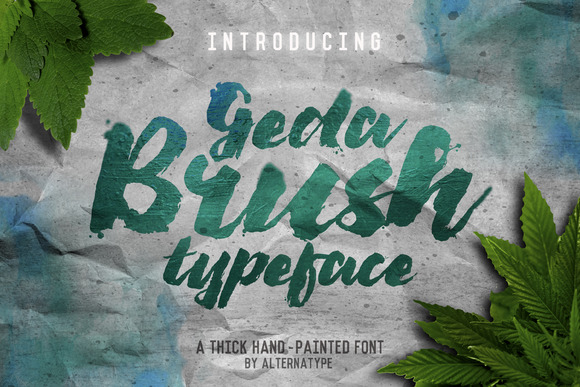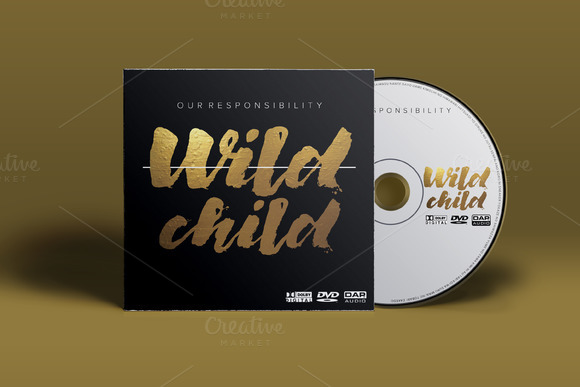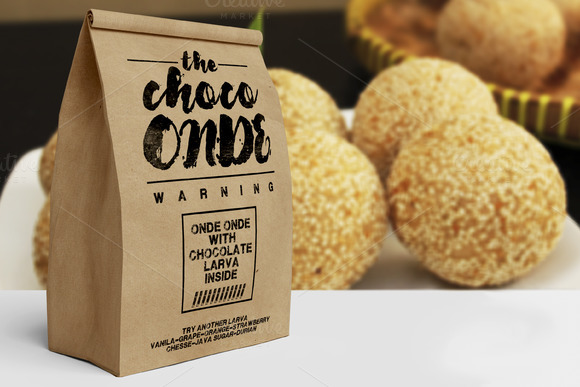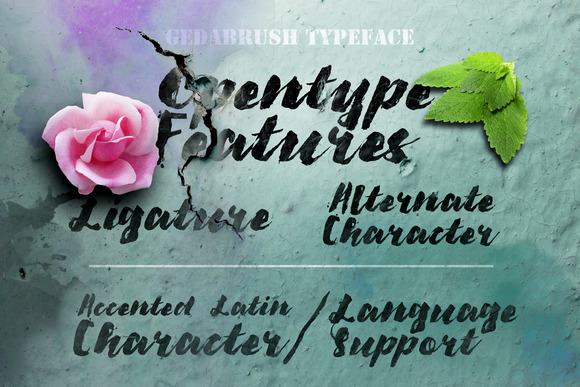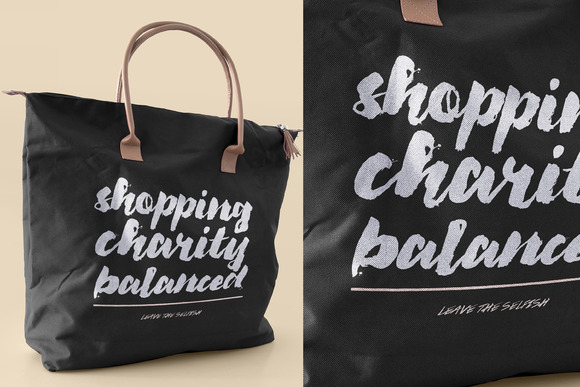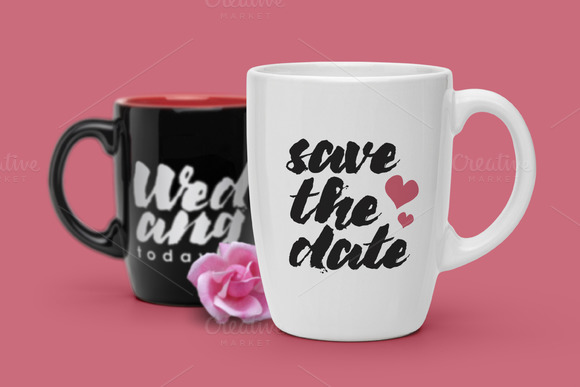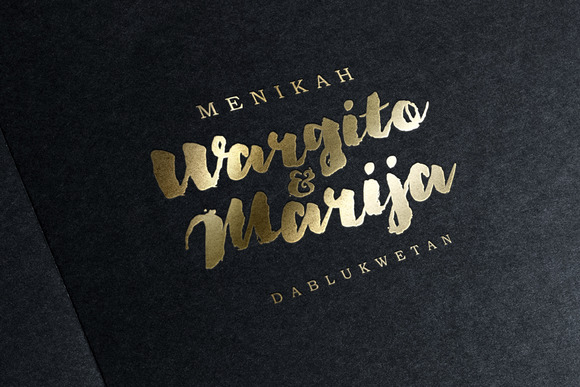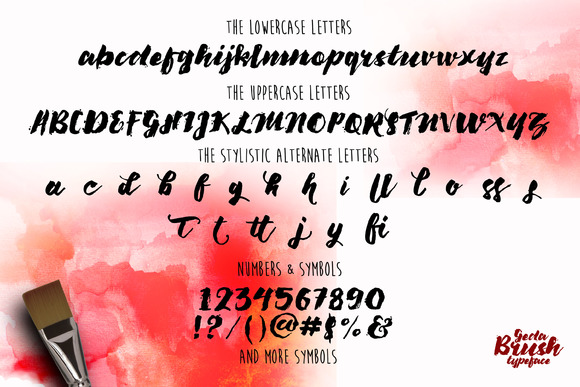
Gedabrush Typeface
Give your designs an authentic handcrafted feel. “Gedabrush” is perfectly suited to stationery, logo, typography quotes, magazine or book cover, website header, clothing, branding, packaging design and more.
| Classification: | Brush Fonts, Script Fonts |